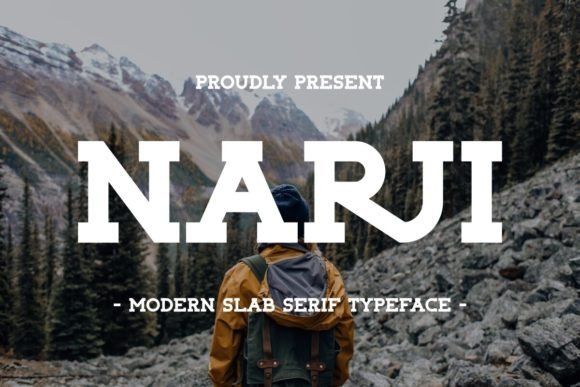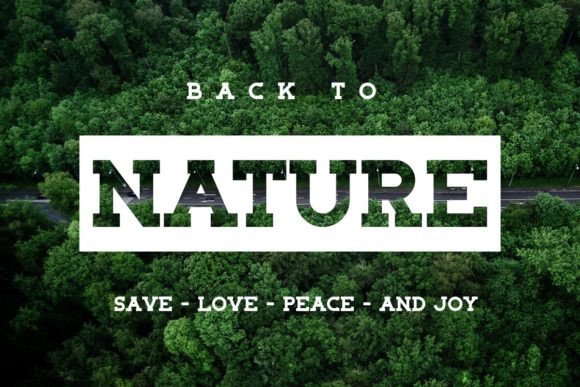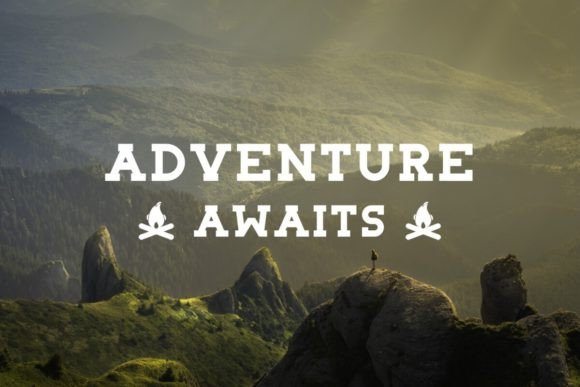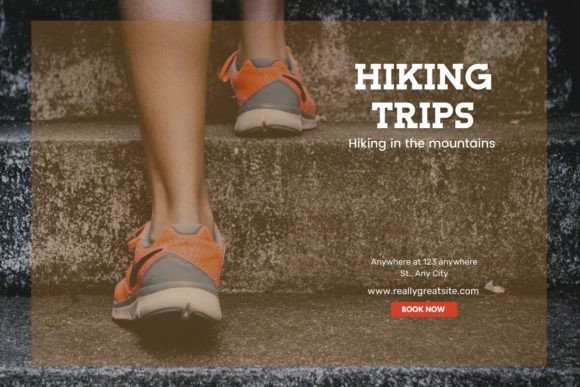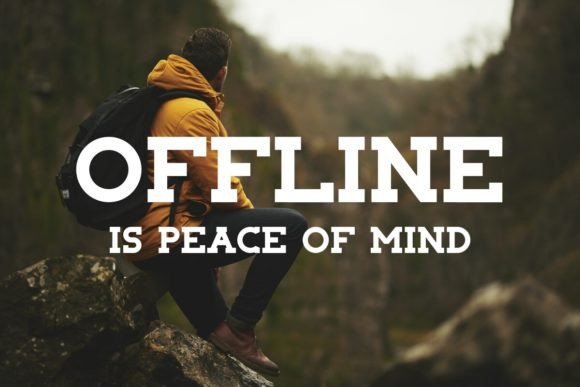
About Narji Font
Narji – A Modern Slab Serif Typeface
Modern Slab Serif Font. Manly, vintage, gentle style font. This font is suitable for mugs, t-shirts, tote bags, headlines, overlays, etc